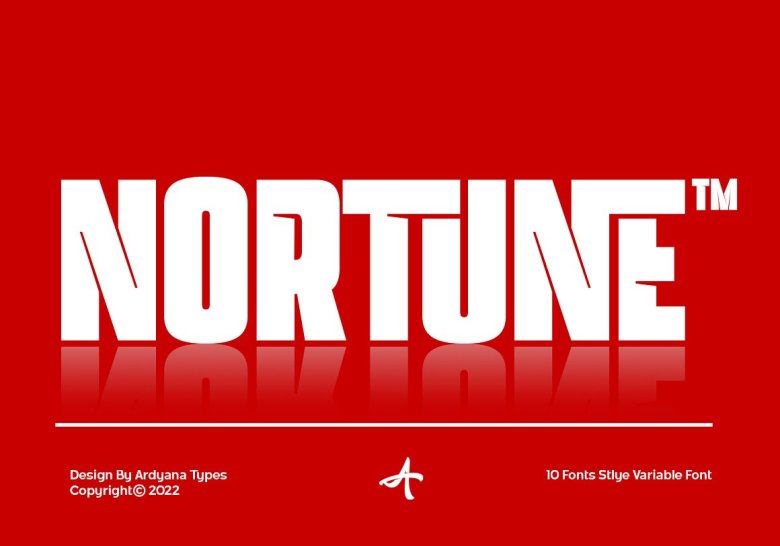
Nortune Font
Nortune Extra black Sans Serif Font This modern-retro style is intended to make it timeless and elegant because of its shape that sets the two styles. dynamic This will come in very handy in a design that feels modern, retro and classic all at the same time. Since Nortune is has 10 thicknesses, it will be compatible with any design you can imagine. Plus, it can be used in any country and language with a variety of options for languages.
Nortune also includes alternative Ligatures, allowing you to create interesting designs. Another option is also changing the font to have more options to mix and match as well. This modern letter shape is going to be fun to pair with all sorts of fonts.
Nortune is perfect for branding, business cards, name tags, advertisements and posters. Also use this on apparel, invitations, stationery card papers magazines etc. Nortune has become a useful typeface offering versatility.
Nortune Sans Serif Font